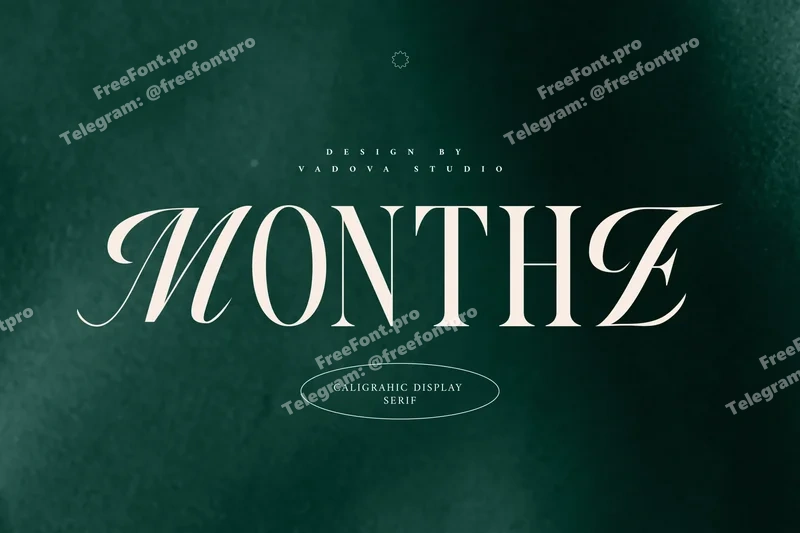
Monthe Calligraphic Display Serif Font
Monthe Calligraphic Display Serif Font presents an elegant fusion of classic calligraphy and modern editorial design. Its refined serif strokes, graceful contrast, and stylish letter curves create a sophisticated visual rhythm. Perfectly balanced between timeless beauty and expressive flair, Monthe captures the essence of luxury and creativity in one typeface. It elevates any layout with its sculptural serifs and fluid motion, making each composition feel polished and high-end.
Relevance and Use Cases is perfect for fashion branding, luxury packaging, editorial design, high-end invitations, elegant logo projects, magazine titles, and premium stationery visuals. It also works beautifully for perfume labels, wedding monograms, art gallery posters, product catalogs, social media visuals, and boutique identity systems giving every design a timeless and sophisticated tone.
Main Features
Calligraphic Serif Style